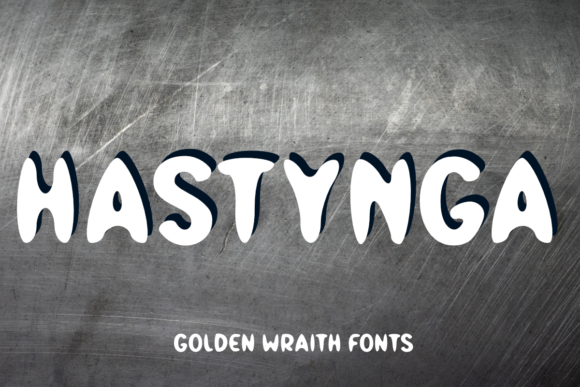
Unleash the allure of sophistication and opulence with Hastynga Font, the epitome of luxury in the world of typography. This captivating display font, meticulously crafted by Golden Wraith, transcends the ordinary, leaving an indelible mark on your creative endeavors.
Immerse yourself in the grandeur of Hastynga's meticulously designed characters, each stroke imbued with a sense of elegance and refinement. Its bold and confident presence commands attention, making it the perfect choice for product packaging that demands to be noticed. Whether you're designing a striking logo, crafting captivating branding projects, or seeking to elevate your social media presence, Hastynga is your font of choice.
Picture your brand adorned with Hastynga's regal charm, exuding an aura of sophistication that sets you apart from the mundane. Its versatility extends beyond mere aesthetics, seamlessly adapting to a myriad of design projects. Whether it's the cover of a glossy magazine, the backdrop of a wedding invitation, or simply a canvas for your heartfelt words, Hastynga transforms the ordinary into the extraordinary.
Indulge in the creative possibilities that await with Hastynga Font, a font that transcends boundaries and ignites your imagination. Let its captivating curves and striking lines elevate your designs to new heights, leaving a lasting impression on all who behold them. Embrace the allure of Hastynga and unlock the true potential of your creative vision.